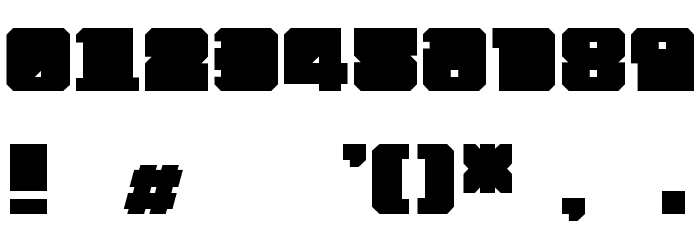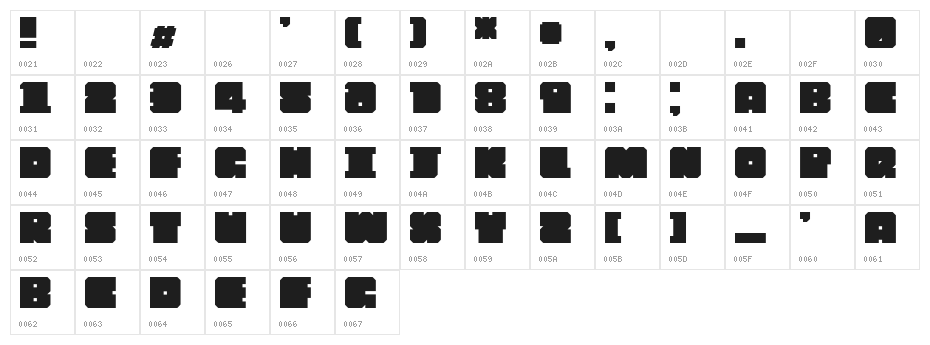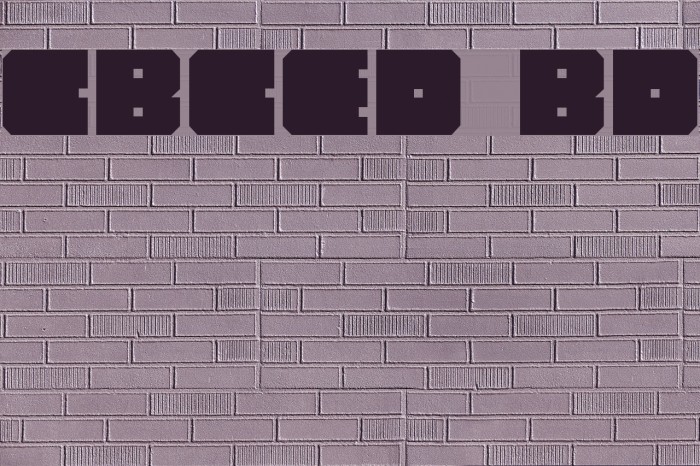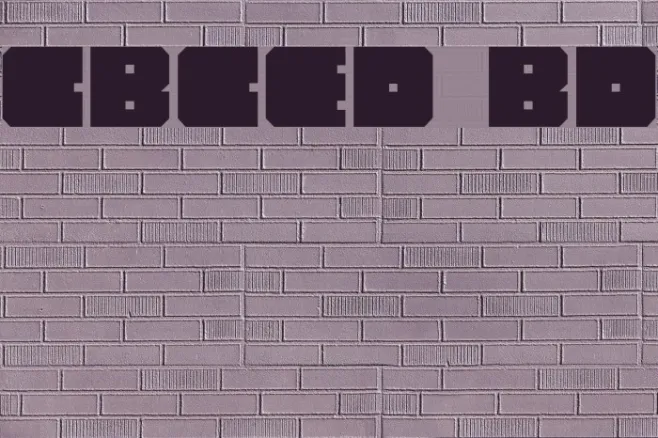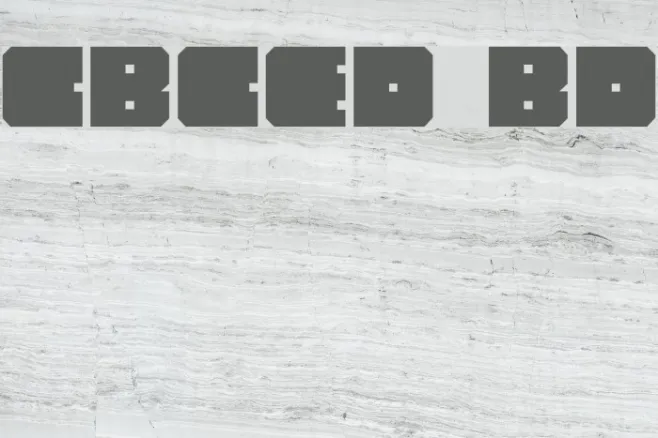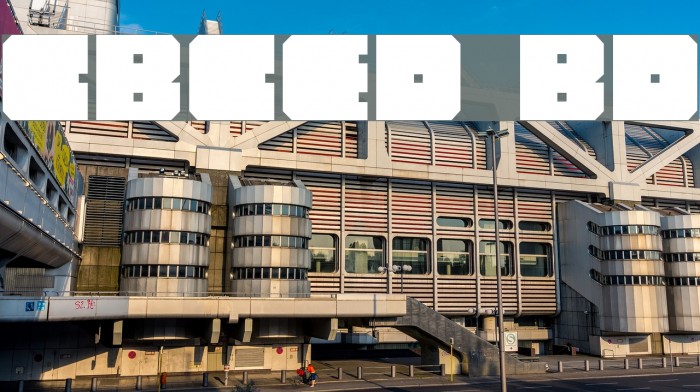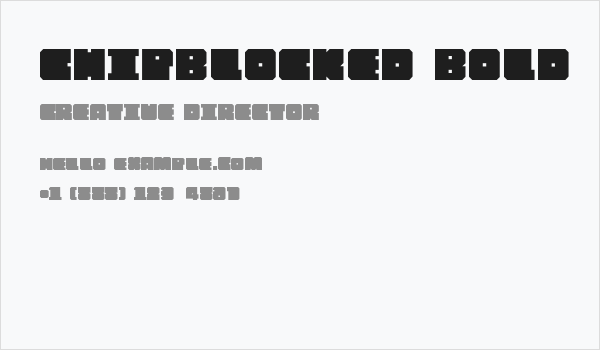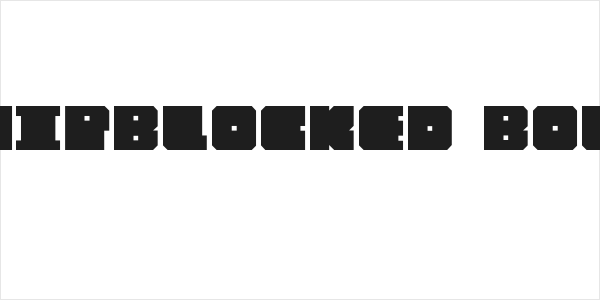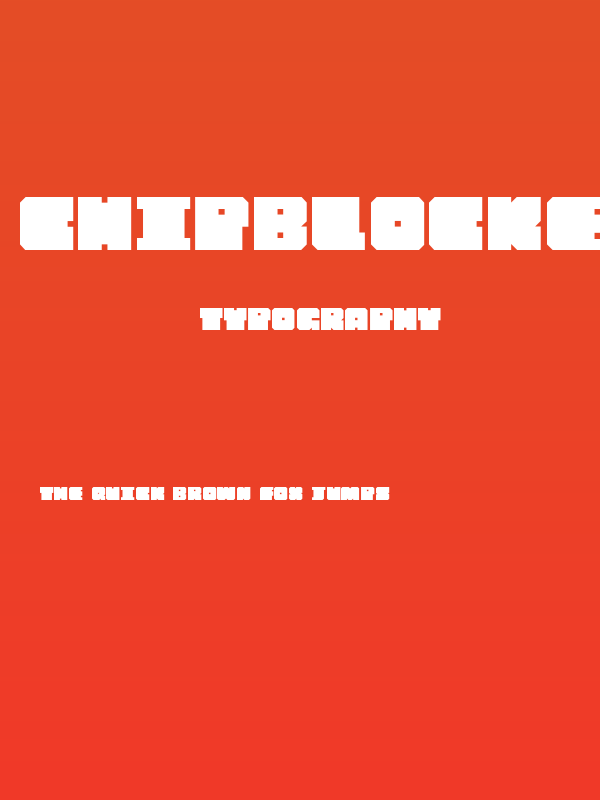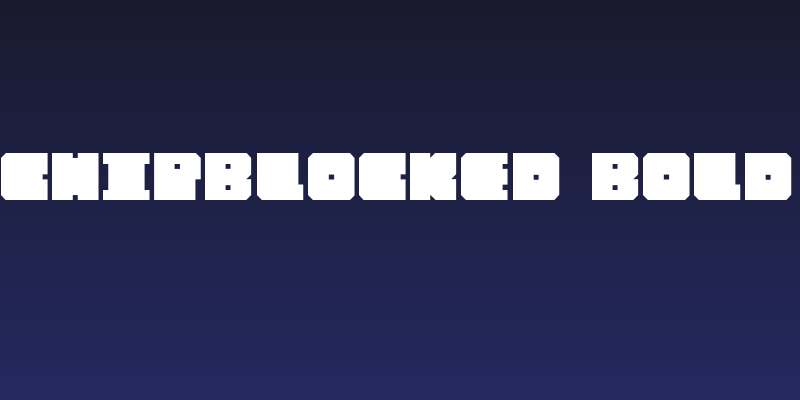
Chipblocked Bold Font
Chipblocked Bold Description
This font features a bold, blocky design with a strong geometric structure. Each character is crafted with sharp edges and uniform thickness, creating a powerful and impactful visual presence. The uppercase and lowercase letters maintain a consistent style, emphasizing a sense of stability and strength. The numerals and special characters follow the same robust design, ensuring a cohesive look across all text elements. This font's solid and dense appearance makes it ideal for projects that require a commanding and assertive typeface.